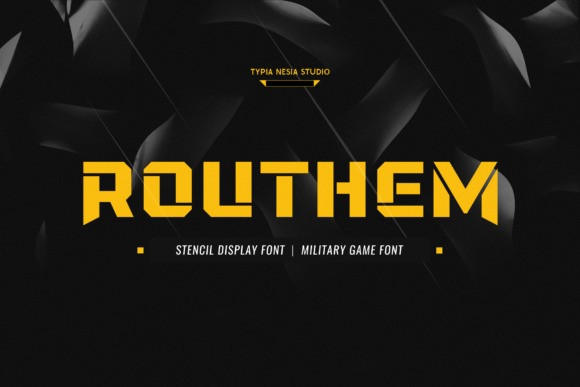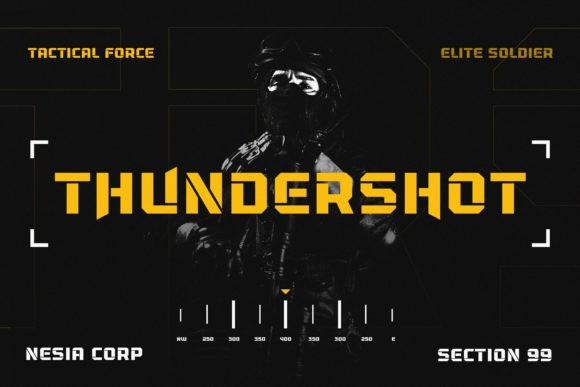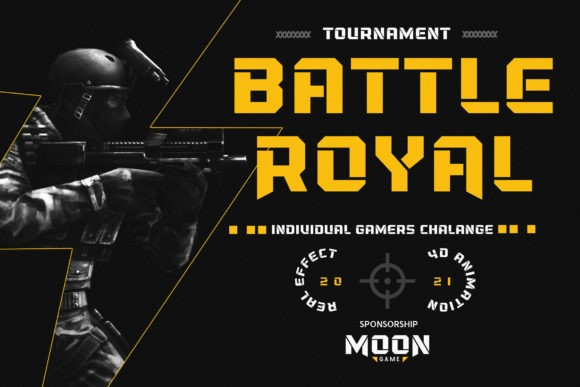
Routhem Font
Routhem is a cool, bold and assertive display font. It is PUA encoded which means you can access all glyphs and swashes with ease!
Use this font for your designs and explore its endless possibilities.